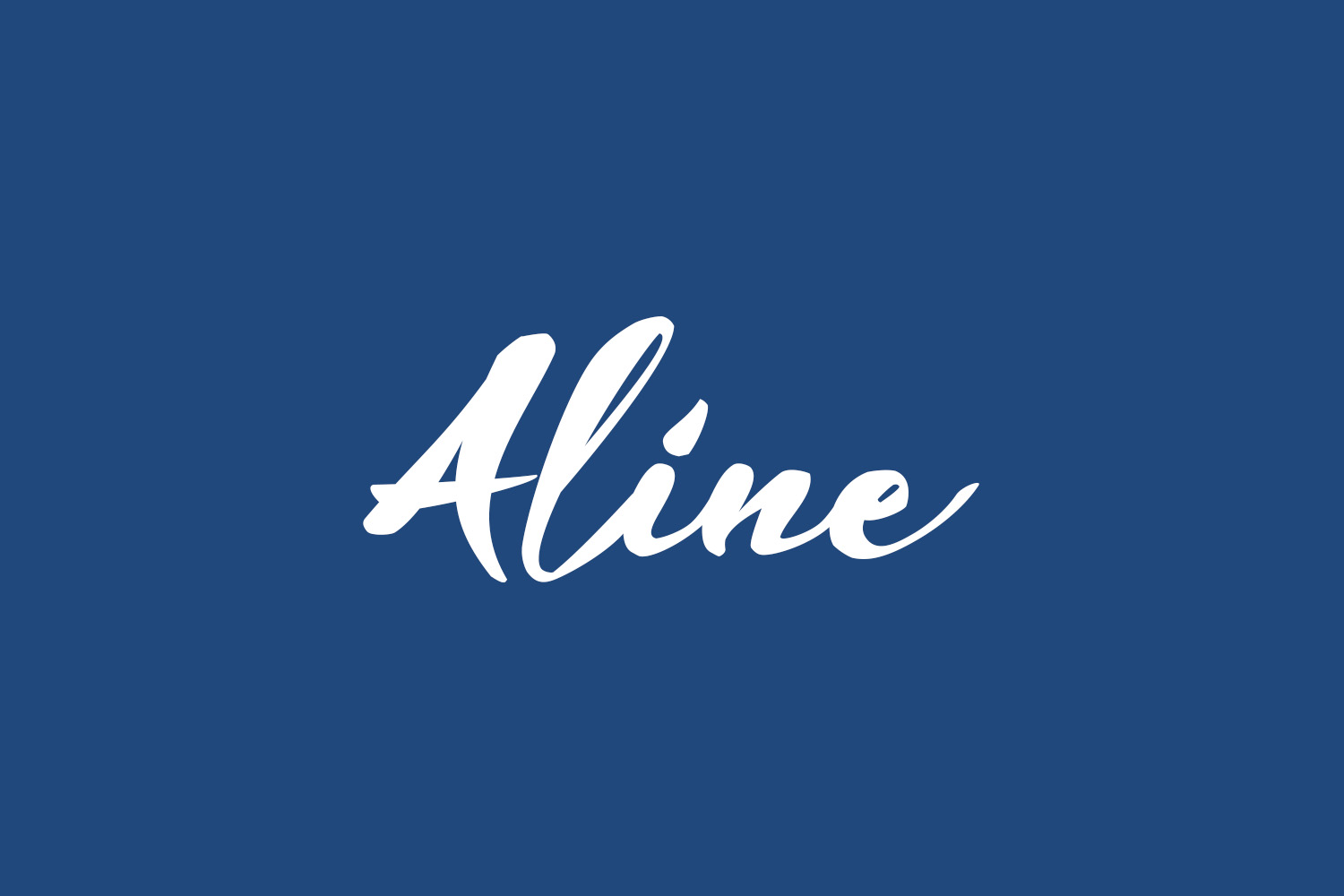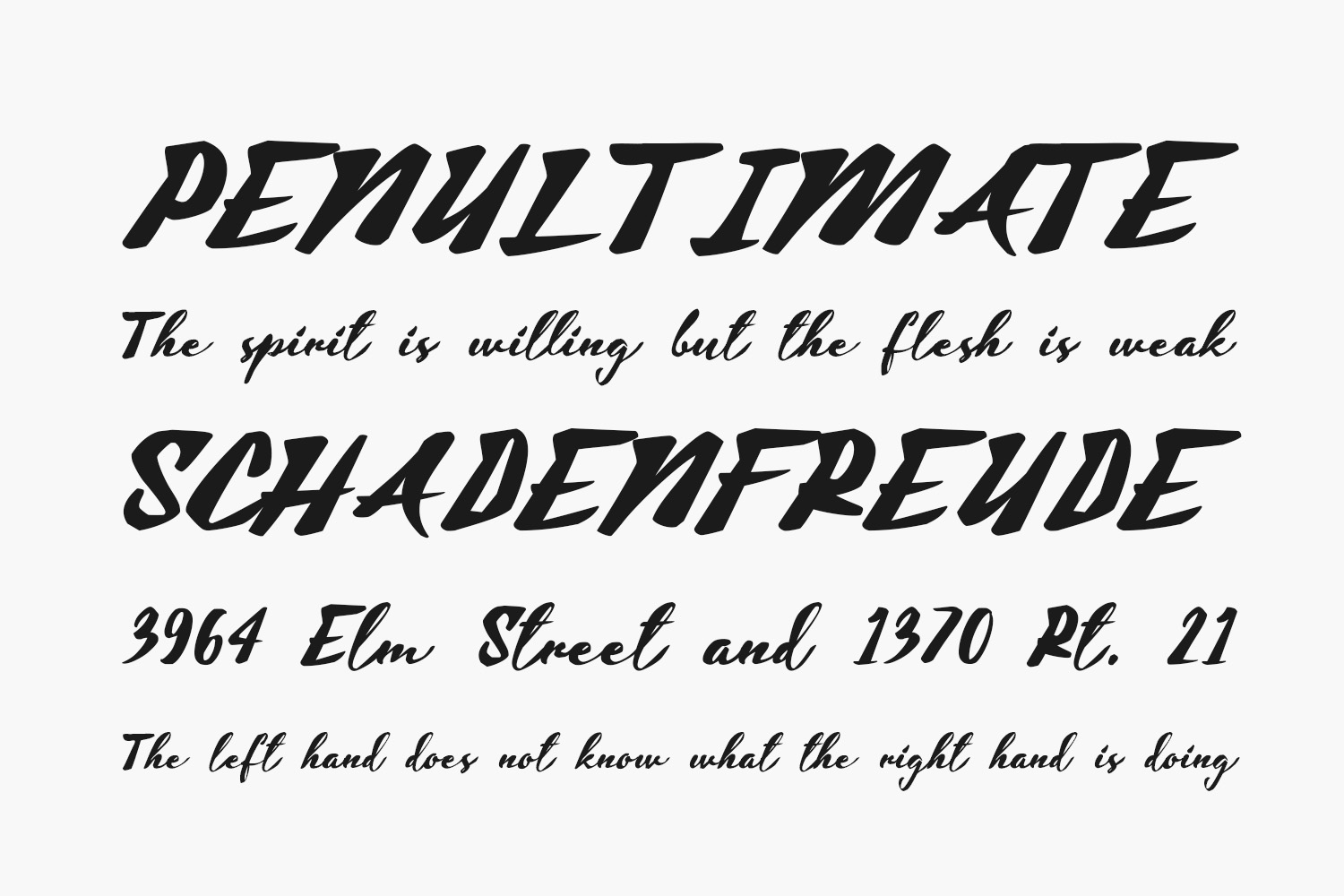
Aline Free Font is a cool, chic, and cursive handwritten font. This font reads as strong, confident, and dynamic and can add tons of nostalgic character to your designs. Aline Free Font was designed by StringLabs and is free for personal use only. Please purchase the full version for commercial use.